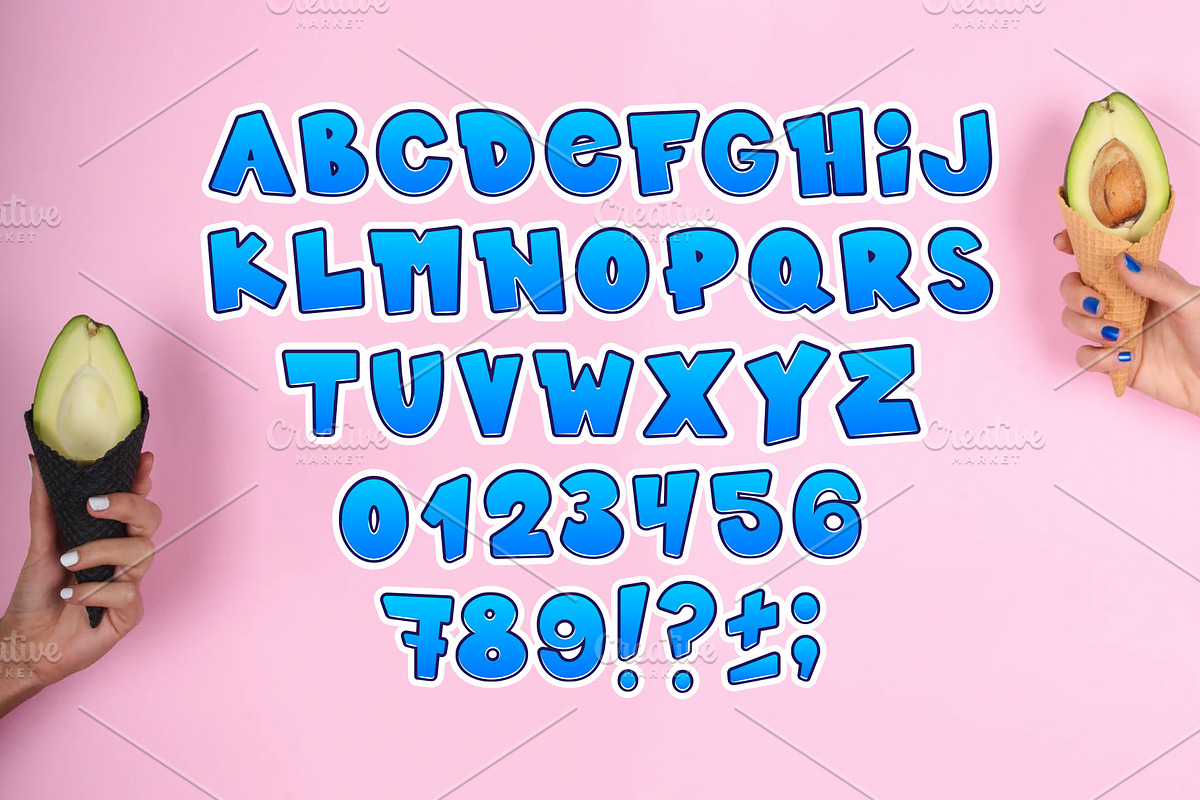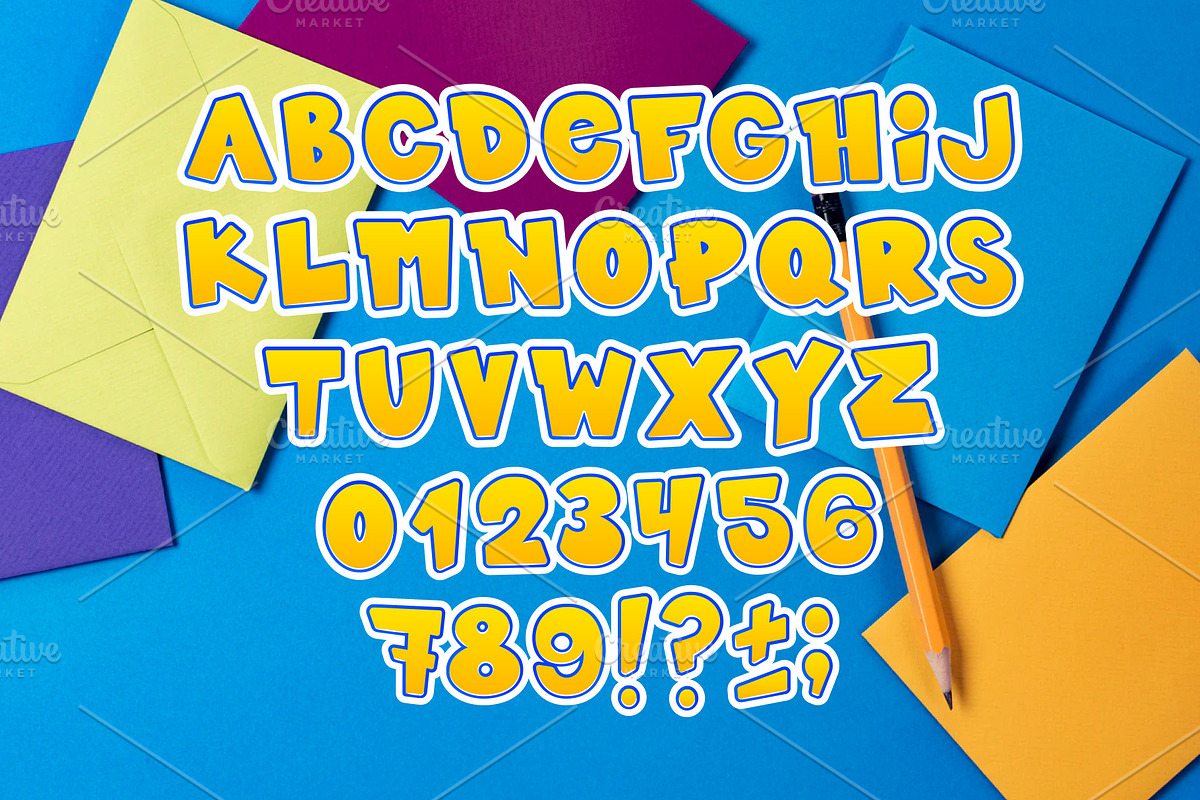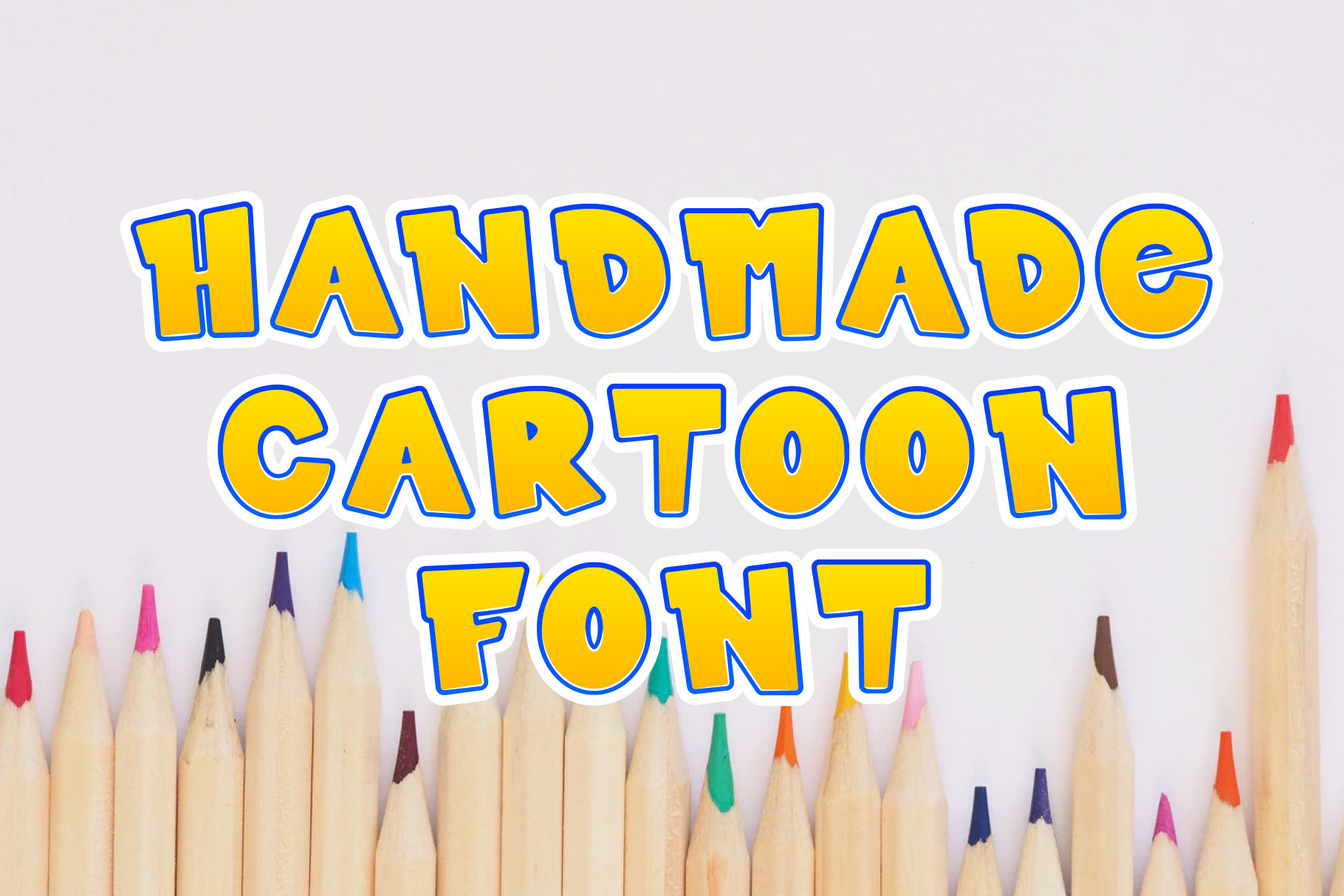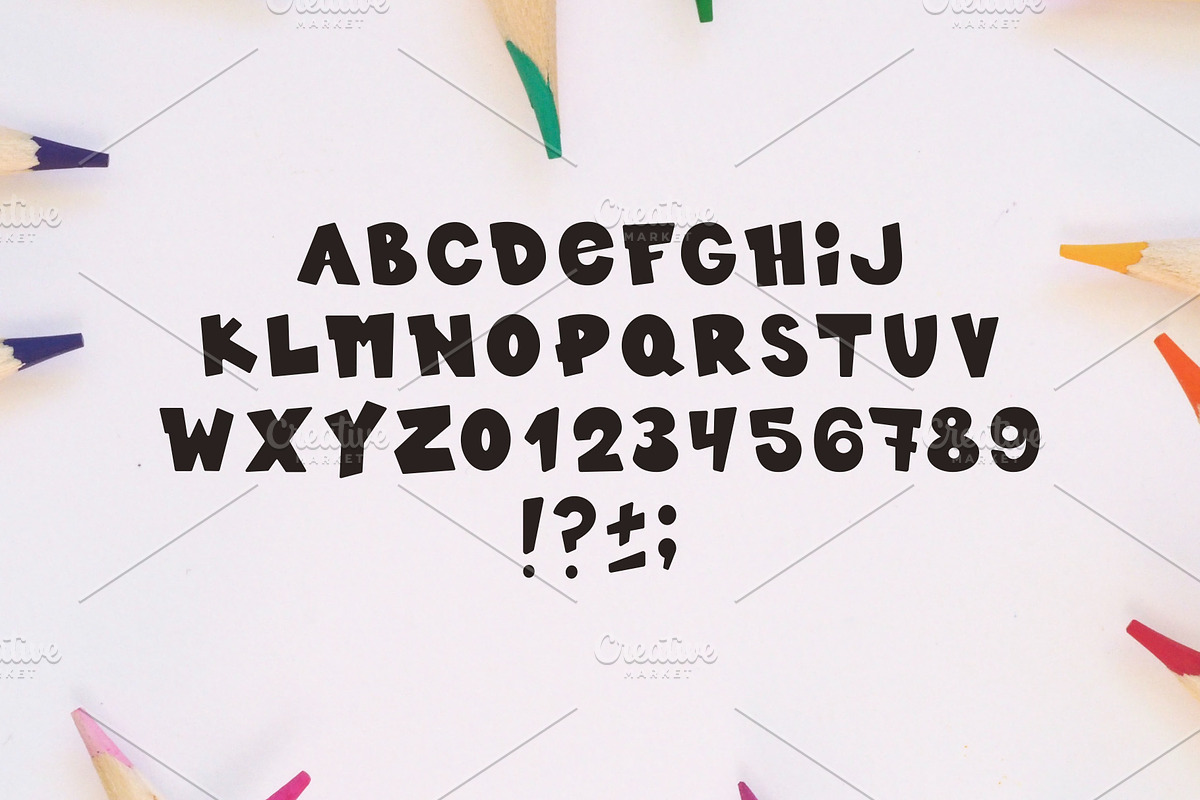
Kids font / handmade font.
- Kids color font in blue, yellow and black. Letters and numbers for your design. Three different fonts provide an opportunity to choose a more suitable design, font with a stroke, a slanted font, and a regular font in a package, all objects are made in vector format that can be used in any size without loss of quality.
This image is great for: 90s decor, 90s, old, vintage, video games, game development, cartoon creation, children's inscriptions, graffiti, modern font.
- CartoonYellow font
- CartoonBlue font
- CartoonBlack font